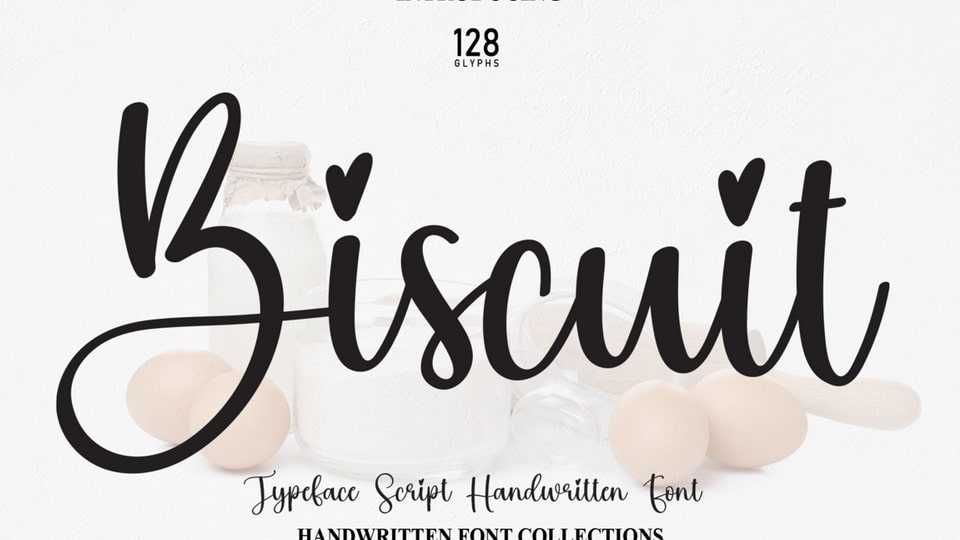
Download Biscuit font, a lovely, elegant and flowing handwritten typeface. Bisquit has beautiful and well balanced characters and as a result, it matches a wide range of designs.